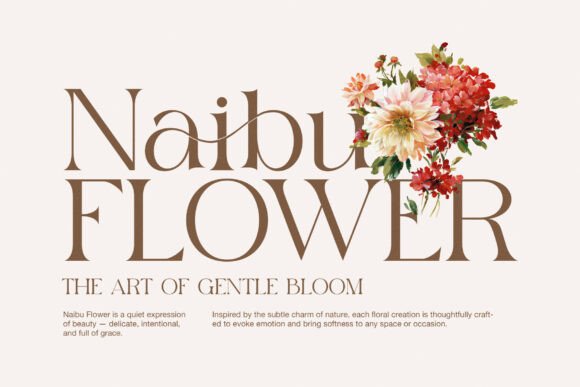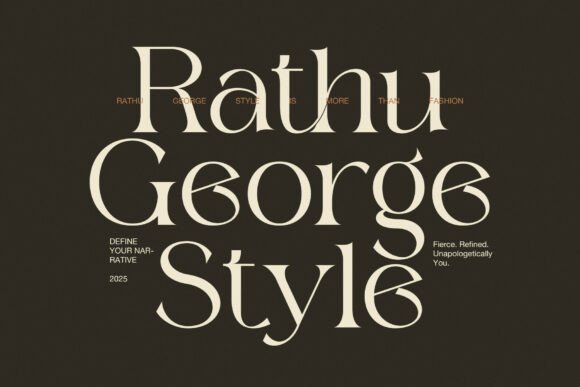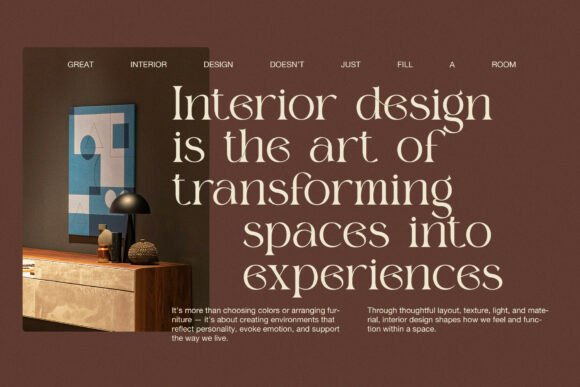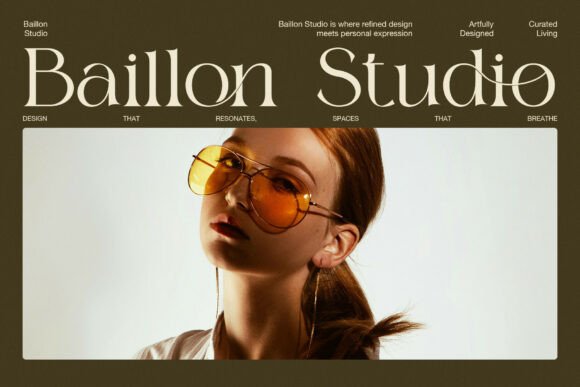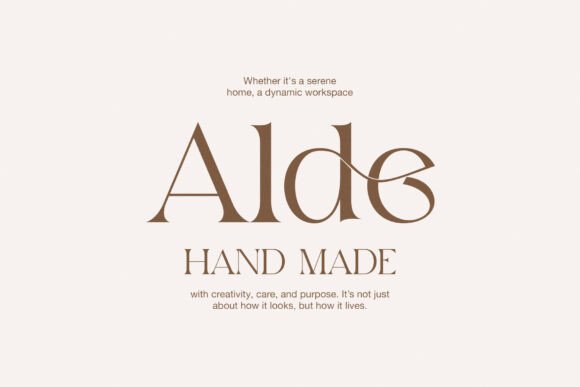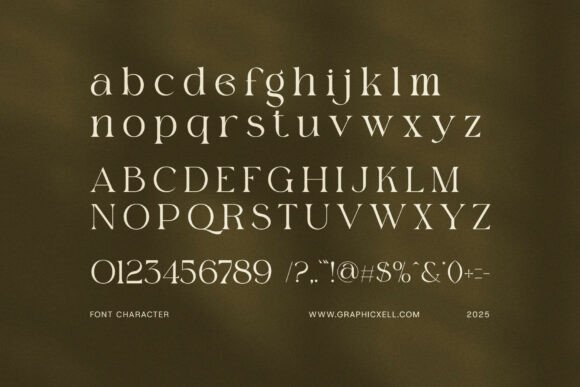
Gadies Font: Elevate Your Design with Elegance and Sophistication
In the world of typography, a well-crafted font can make all the difference in elevating your design from ordinary to extraordinary. Introducing Gadies, an elegant serif font that embodies the perfect blend of modernity and timeless beauty. Designed specifically for today’s designers, Gadies offers a unique combination of soft curves, sharp serifs, and a proportional layout that brings balance and harmony to every letter.
A Versatile Font for Diverse Design Needs
One of the standout features of Gadies is its versatility. This clean and modern typeface works exceptionally well for both large and small text, making it an ideal choice for a wide range of design applications. Whether you’re working on print materials, such as brochures and business cards, or digital designs, like website headers and social media posts, Gadies ensures that your message is conveyed with clarity and sophistication.
The Beauty of Details: Ligatures and Layout
What sets Gadies apart from other fonts is its attention to detail. The font features functional ligatures, which create a natural and connected feel to the words. These subtle touches add personality to your design without making it feel cluttered or busy. The smooth details and proportional layout of Gadies ensure that your work looks neat, elegant, and highly professional.
Perfect Pairings and Endless Possibilities
Gadies is not only a stunning font on its own, but it also pairs beautifully with other fonts, especially minimalist sans serifs. This flexibility opens up endless possibilities for creative experimentation and design innovation. Whether you’re working on a fashion branding project, business logo, packaging, or editorial design, Gadies provides the perfect foundation for your creative vision.
Top Uses for Gadies Font
So, how can you make the most of Gadies in your design projects? Here are some perfect uses for this elegant serif font:
- Logo design for high-end brands: Gadies exudes luxury and sophistication, making it an excellent choice for high-end brand logos that require a touch of elegance.
- Elegant magazine and editorial design: The font’s classic beauty and readability make it perfect for magazine and editorial design, where clarity and style are paramount.
- Fashion branding and packaging: Gadies’ modern and sleek aesthetic makes it an excellent fit for fashion branding and packaging, where style and sophistication are essential.
- Business logos and corporate identity: The font’s professional and elegant appearance makes it suitable for business logos and corporate identity projects, where a strong brand image is crucial.
- Website headers and social media posts: Gadies’ versatility extends to digital design, making it an excellent choice for website headers and social media posts, where it can add a touch of elegance and sophistication.
In conclusion, Gadies is a versatile and elegant serif font that offers a unique blend of modernity and timeless beauty. Its attention to detail, functional ligatures, and proportional layout make it an excellent choice for a wide range of design applications. Whether you’re a designer, crafter, or creative professional, Gadies is sure to elevate your design projects and add a touch of sophistication and elegance. With its endless possibilities and perfect pairings, Gadies is an essential font for anyone looking to create stunning and professional designs.